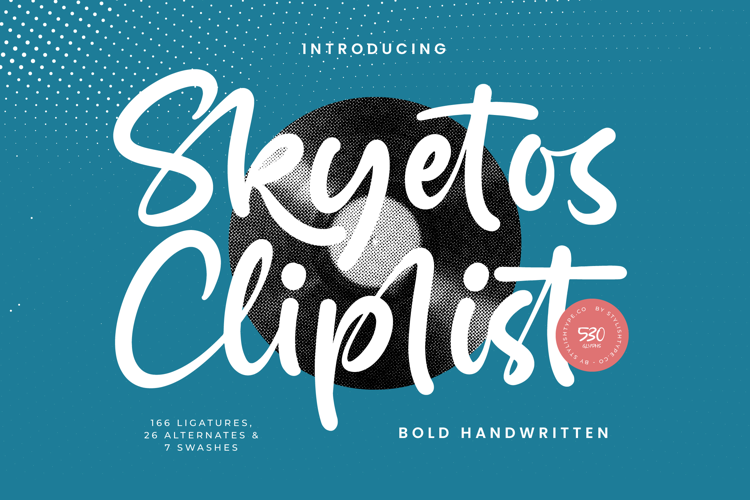
Skyetos Cliplist - Bold Handwritten Font
Skyetos Cliplist
Skyetos Cliplist Italic
Skyetos Cliplist - Bold Handwritten Font
Elevate your creative vision with the striking presence of Skyetos Cliplist - Bold Handwritten Font, a masterpiece of modern calligraphy and bold typography. This typeface captures an authentic hand-drawn energy, blending thick, confident strokes with a fluid motion that demands attention. Designed for those who seek to balance organic warmth with professional polish, it offers an expressive that transforms standard layouts into bespoke design statements.
Expand your global reach and technical flexibility with a suite of over 530 glyphs, including 166 ligatures and 7 custom swashes that provide endless creative variety. With its extensive multilingual support, Skyetos Cliplist - Bold Handwritten Font adapts seamlessly across global markets, making it incredibly versatile for international projects. This technical excellence ensures that your message remains consistent and impactful, regardless of the linguistic requirements or the complexity of the visual composition.
Unlock limitless branding potential by applying Skyetos Cliplist - Bold Handwritten Font to high-impact packaging design, luxury branding, and editorial layouts. It is the perfect choice for lifestyle logos, fashion advertisements, and social media graphics where a , high-contrast touch is essential. Whether used for headline typography or product labels, this font provides the visual hierarchy and sophisticated charm needed to captivate a discerning audience.
Command attention instantly and establish a distinctive brand identity that resonates with authenticity and modern style. By integrating Skyetos Cliplist - Bold Handwritten Font into your toolkit, you are investing in a premium typographic asset that bridges the gap between casual elegance and power. Experience the perfect fusion of artistry and functionality, ensuring your next project stands out in an increasingly competitive digital landscape.